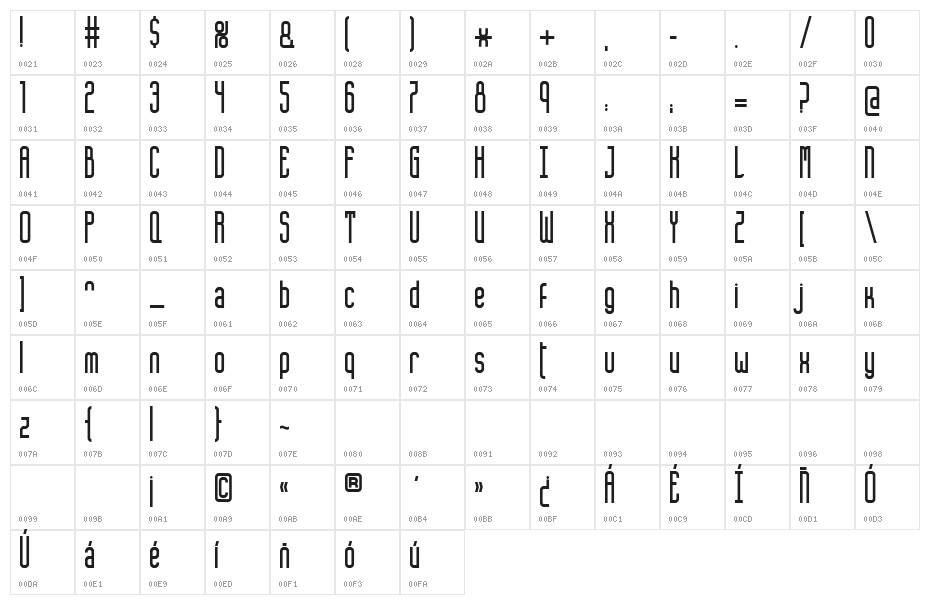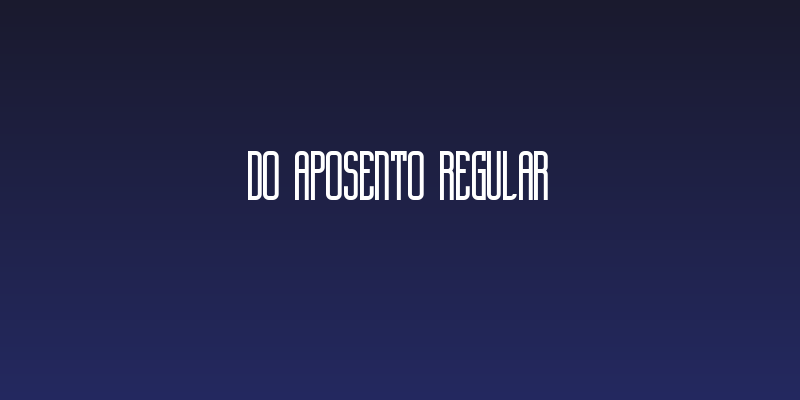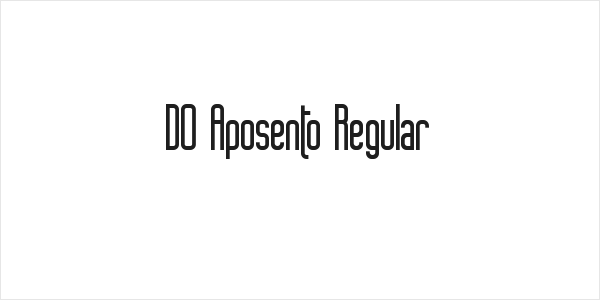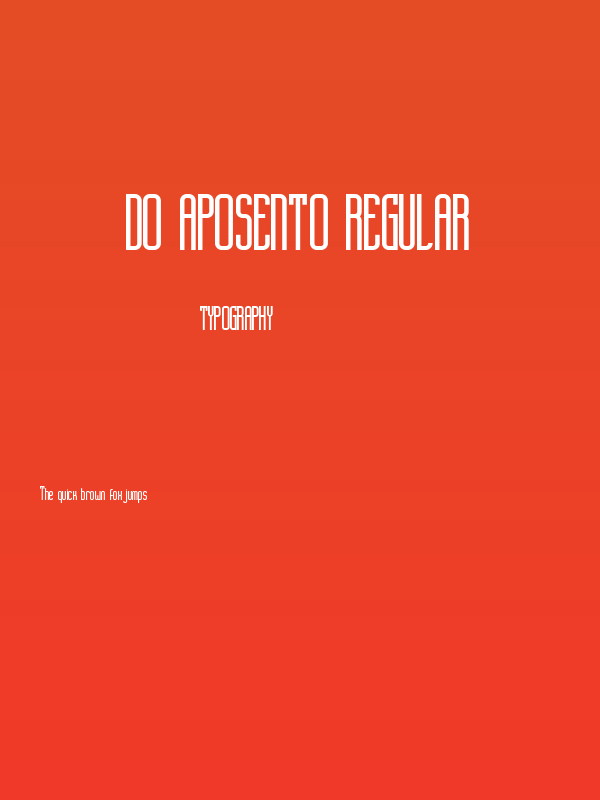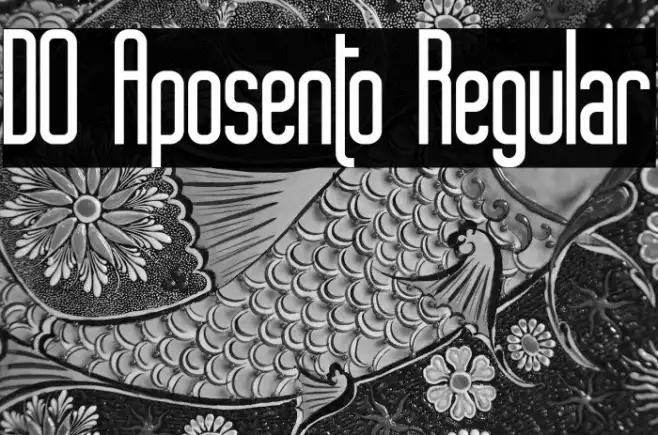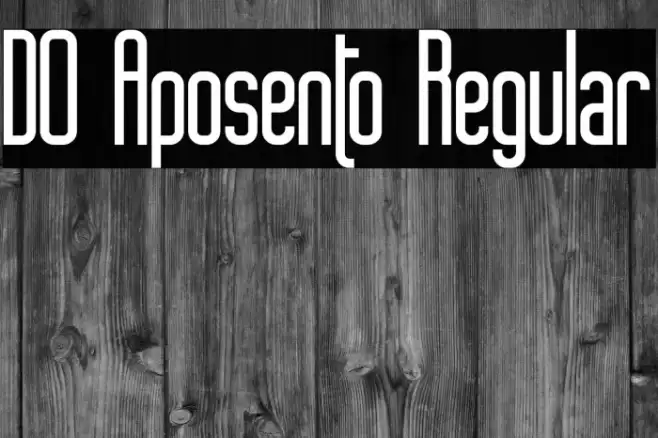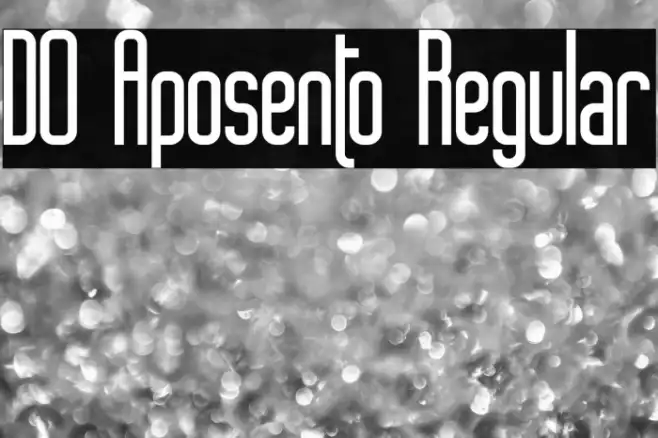
DO Aposento Regular Font
DO Aposento Regular Description
This font features a tall and narrow design with a distinct geometric structure. The characters are elongated, giving a modern and sleek appearance. The uppercase and lowercase letters maintain a consistent height, contributing to a uniform look. The font includes numerals and a variety of special characters, all designed with the same narrow and elongated style. The strokes are consistent in width, providing a clean and minimalistic feel. This font is ideal for creating a contemporary and stylish aesthetic.
| Proposed Projects | Ideal for modern branding, posters, headlines, and digital media where a contemporary look is desired. |